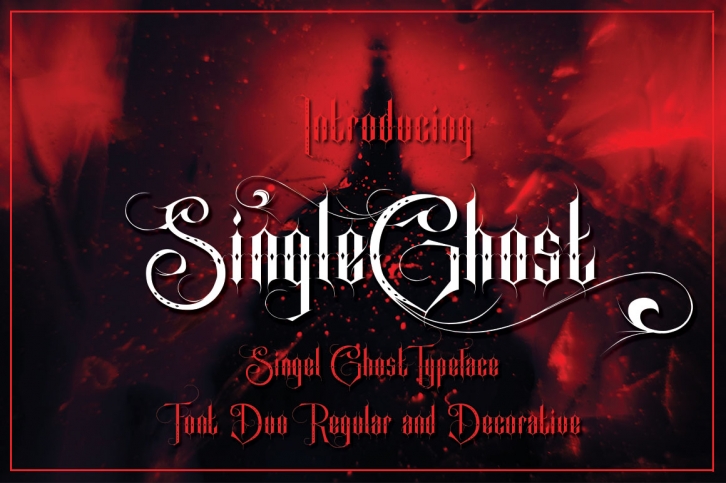
Singel Ghost is a great font that was designed by baldam. Imagine the amount of combinations you can create using this font! The archive is 13.13 MB and it was released on May 28, 2019. Singel Ghost looks beautiful on wedding invitations, greeting cards, logos, posters, labels, t-shirt designs, logos, business cards and is perfect for use in ink or watercolor works, fashion, magazines, packaging and food menus, children's books and more!